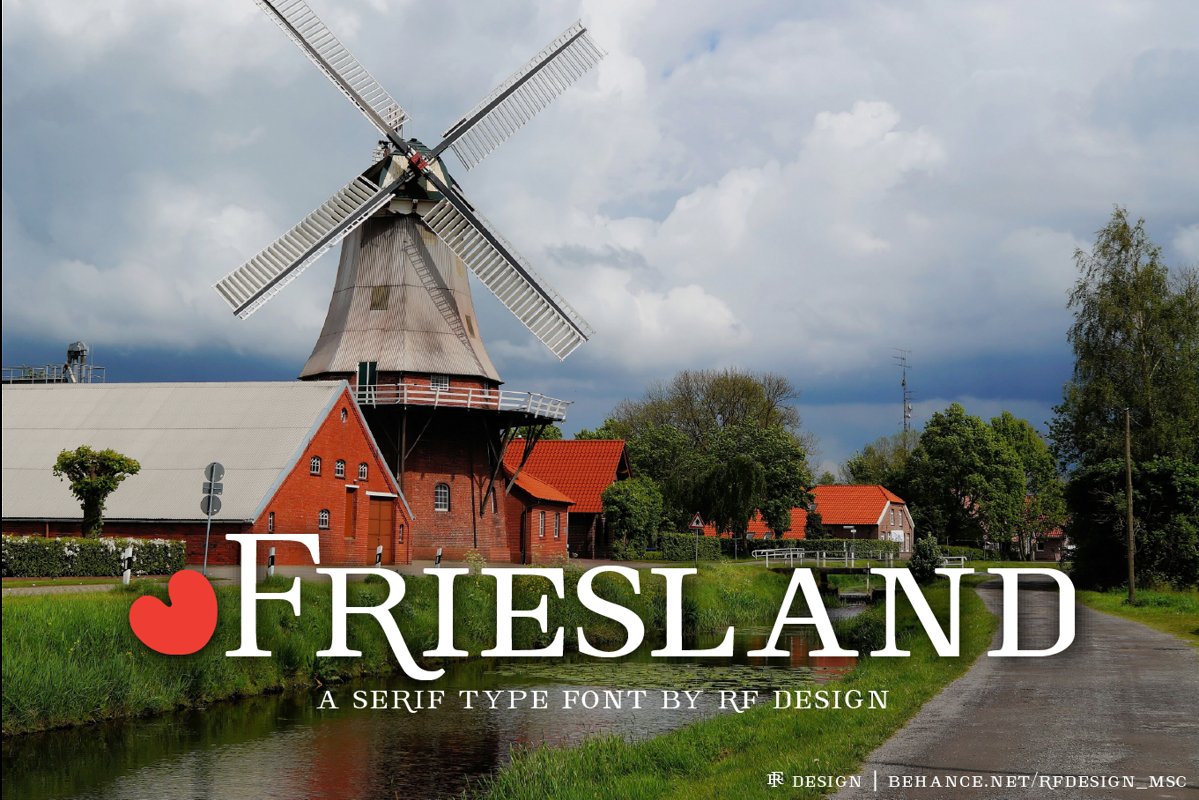
Friesland
Friesland is a serif type font by RF Design. This font is completed on May 2019. This font used small capital letter form for small letter. This font is support to type character from Unicode block Basic Latin, Latin 1 Supplement, Latin Extended-A, some Cyrillic character, and Latin Extended Additional. The name font "Friesland" is from the name of a province in Netherland, "Fryslân", also known as Frisia